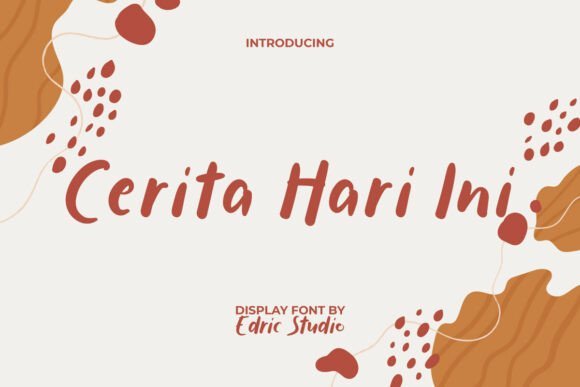
The Secret to Adding Whimsy to Your Designs in Minutes
You know that feeling when you’re brainstorming ideas for a new project and suddenly, a spark of creativity hits you? Maybe it’s a quirky illustration, a playful color palette, or a font that perfectly captures the mood. For designers, finding that perfect font can be the difference between a project that’s just ‘good’ and one that’s truly ‘great’. Enter Cerita Hari Ini Font, a charming, handwritten font designed to add an extra layer of whimsy and personality to your work.
With its adorable, cursive script, Cerita Hari Ini Font is the perfect addition to any project, from advertising and animation to fashion and film. Whether you’re looking to create a sense of nostalgia or a modern, playful vibe, this font is sure to deliver. And the best part? It’s incredibly versatile, making it a valuable tool for designers of all levels and styles.
Cerita Hari Ini Font Key Features
- Font Family: A unique and expressive script font, perfect for storytelling and creative content.
- Font Size: The font is designed to be versatile and can be used in various font sizes, ranging from 12pt to 72pt.
- Resolution: Optimized for high-resolution displays, making it perfect for digital use.
- Unique Characteristics: Features a hand-drawn, handwritten feel with subtle imperfections, giving it a personal and emotive touch.
- Language Support: Supports multiple languages, including Latin, Cyrillic, and Greek alphabets.
Cerita Hari Ini Font Review
I’ve had the chance to work with Cerita Hari Ini Font, and overall, I’m quite impressed with its unique charm. Here are some of the things that stood out to me:
- ✨ The font’s nostalgic feel is perfect for projects that require a vintage or retro vibe. It’s a great choice for anyone looking to add a touch of nostalgia to their design.
- ✨ The font’s elegant script style makes it suitable for projects that require a high level of sophistication, such as wedding invitations or luxury branding.
- ✨ Cerita Hari Ini Font is highly customizable, with a wide range of font weights and styles to choose from. This makes it easy to tailor the font to fit the specific needs of your project.
However, there are a few limitations to be aware of:
- ⚠️ The font may not be suitable for projects that require a modern or minimalist aesthetic, as its ornate design may clash with clean lines and simple shapes.
- ⚠️ The font’s script style can be challenging to read in certain contexts, such as small text or at very large sizes.
Overall, I think Cerita Hari Ini Font is a great choice for designers who want to add a touch of elegance and sophistication to their projects. With its unique charm and high level of customization, it’s definitely worth considering for your next design project.